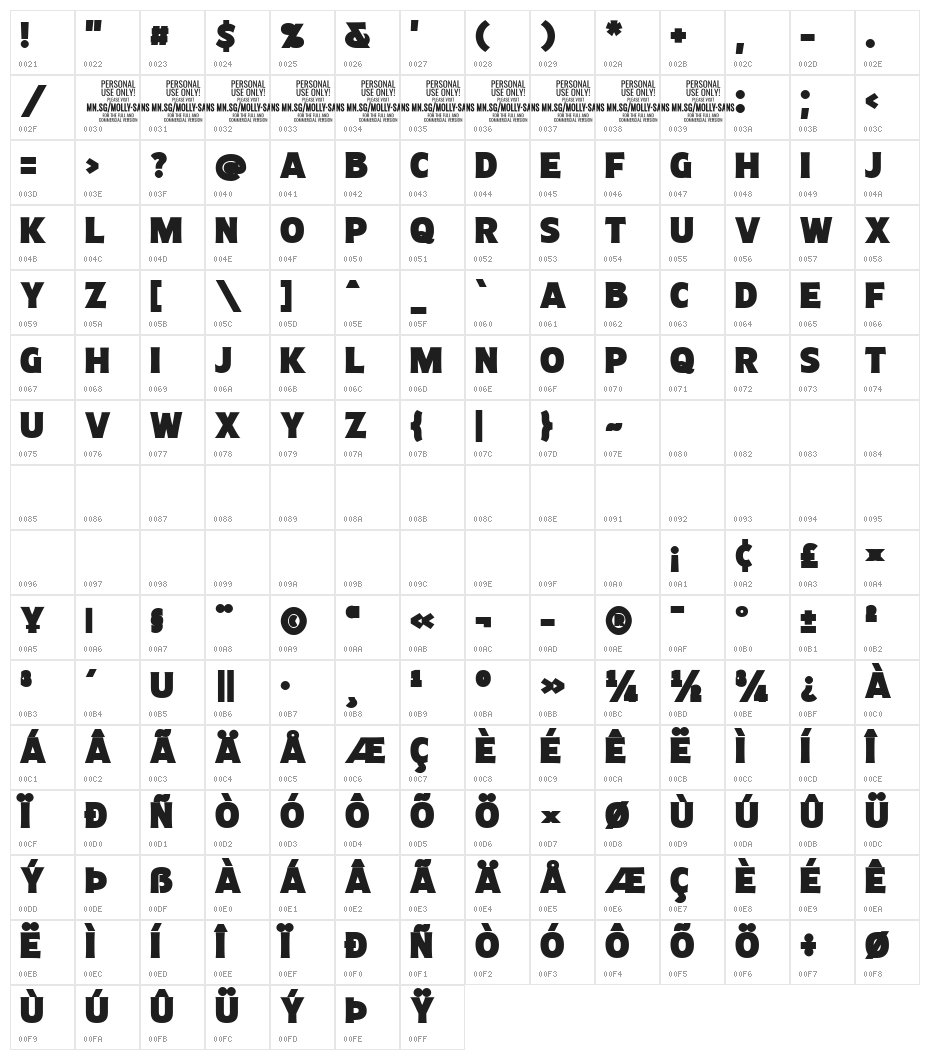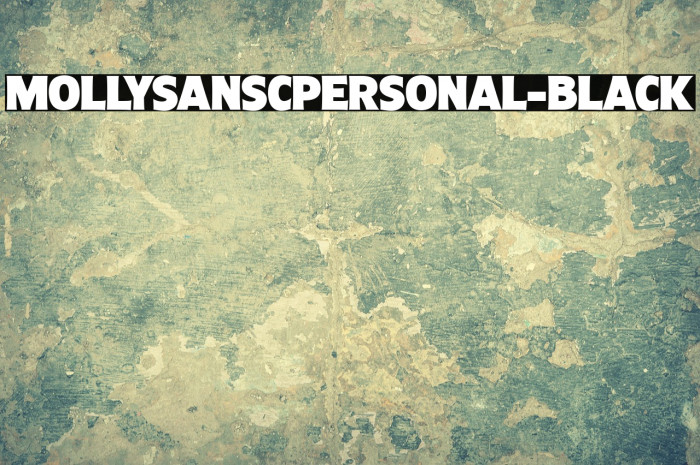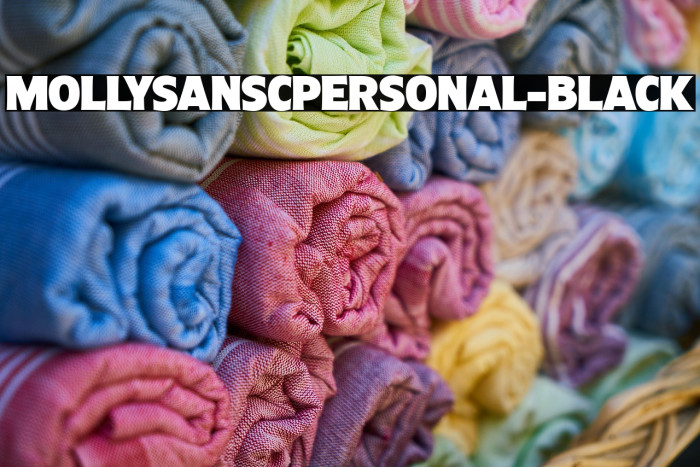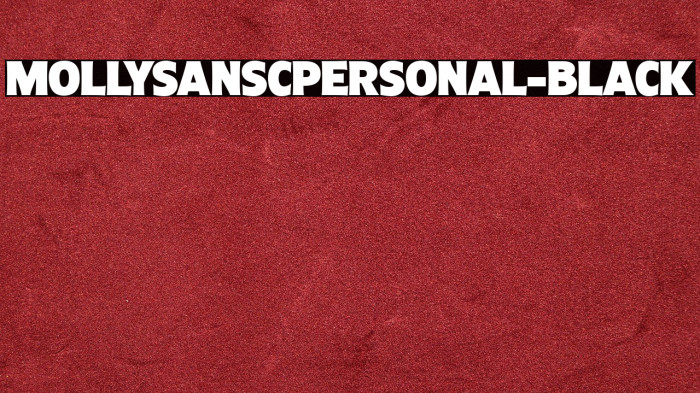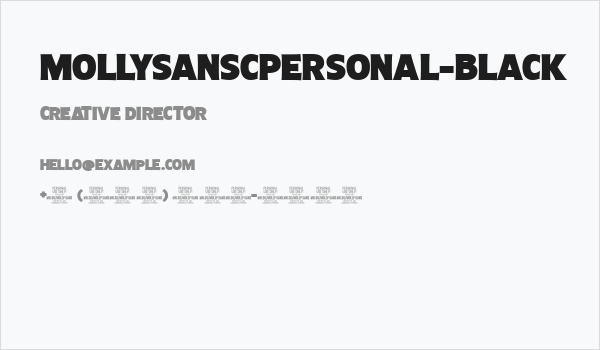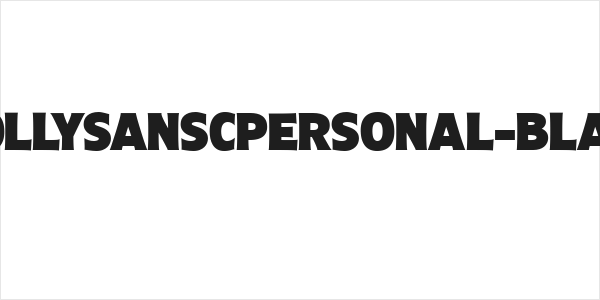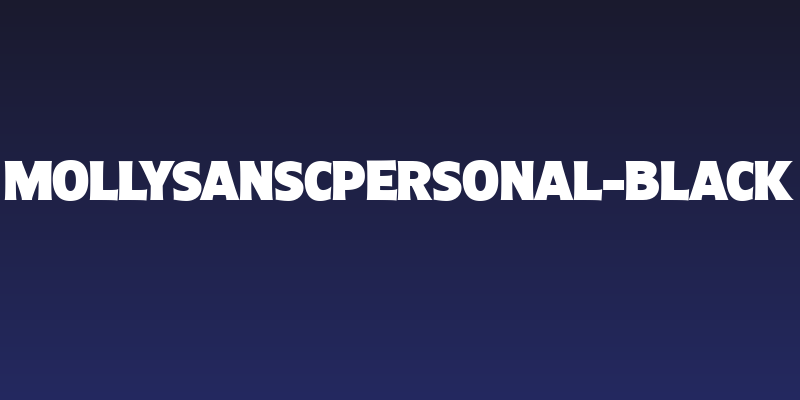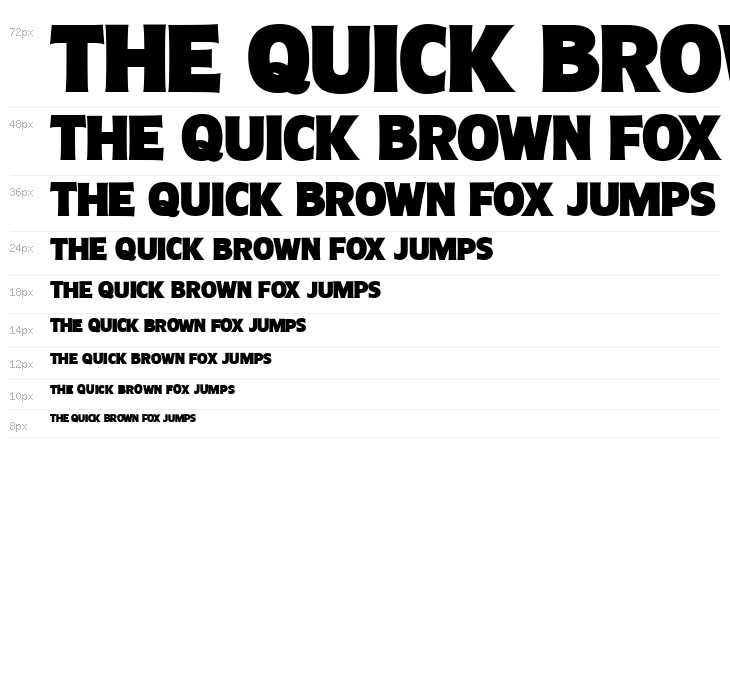
MollySansCPERSONAL-Black Font
MollySansCPERSONAL-Black Description
This bold and striking font features thick, heavy strokes with a playful yet assertive style. The characters are slightly condensed, giving them a compact appearance while maintaining readability. The uppercase letters exhibit a unique flair with subtle curves and angles, adding a touch of personality. The lowercase letters mirror this style, ensuring consistency across the typeface. The numbers and special characters are designed to match the boldness of the alphabet, making them suitable for impactful designs. Overall, this font is ideal for projects that require a strong visual presence.